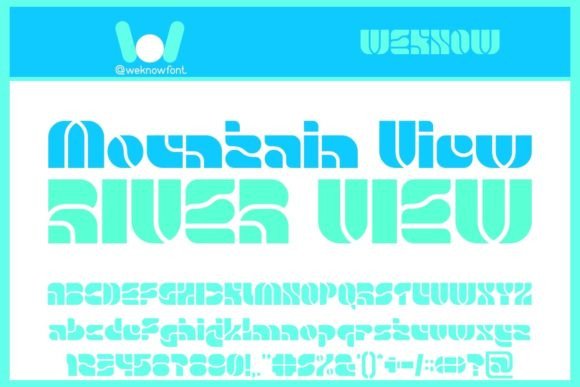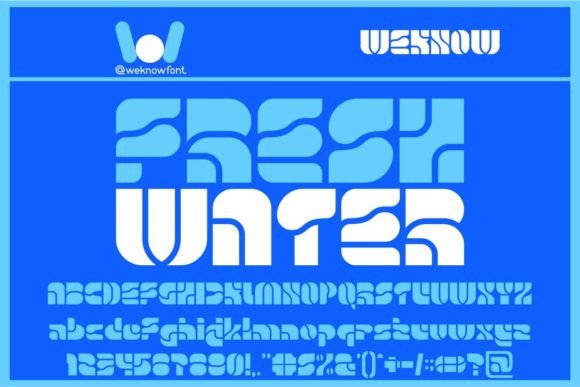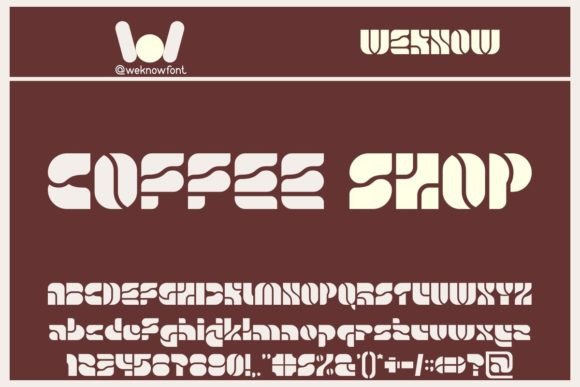
Introduction to Research Font
Research is a cool and uniquely shaped display font.
Masterfully designed to become a true favorite, this font has the potential to bring each of your creative ideas to the highest level .